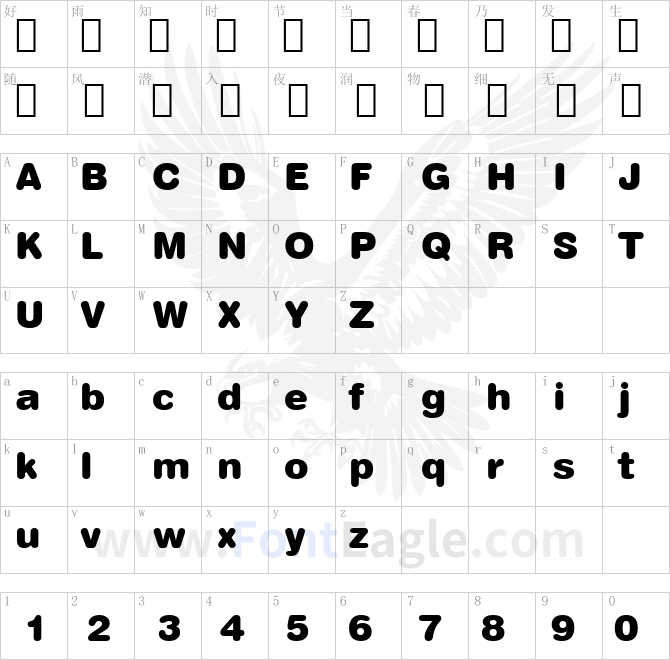
- Font name:Swis721 BlkRnd BT
- Font Subfamily ID:Swiss 721 Black Rounded
- Font Full Name:Swiss 721 Black Rounded BT
- Postscript:Swiss721BT-BlackRounded